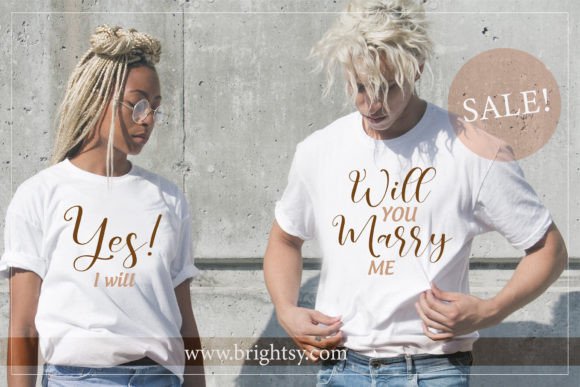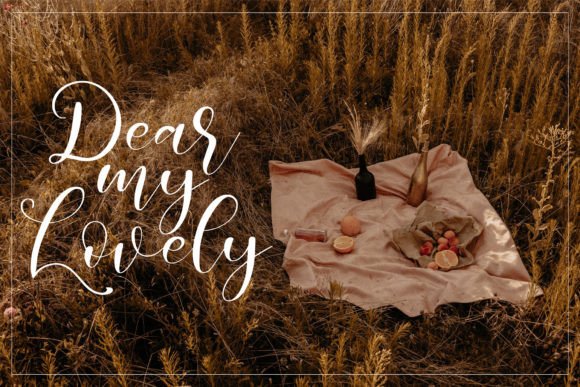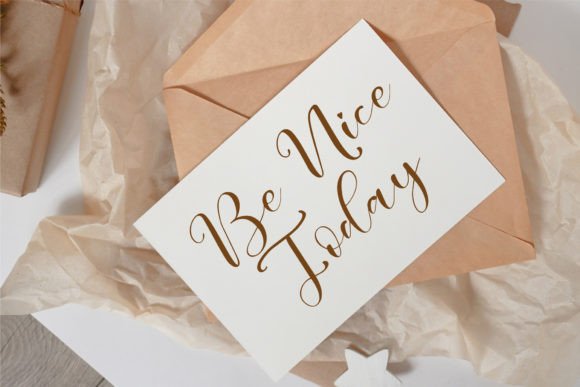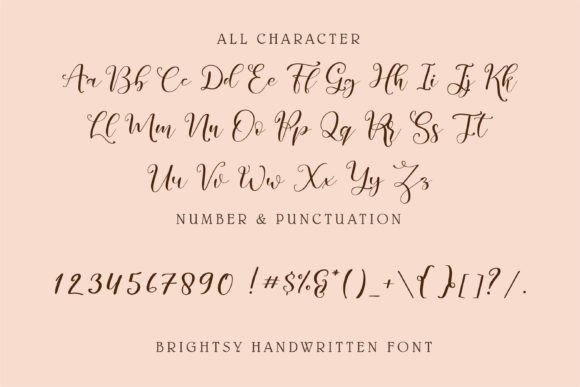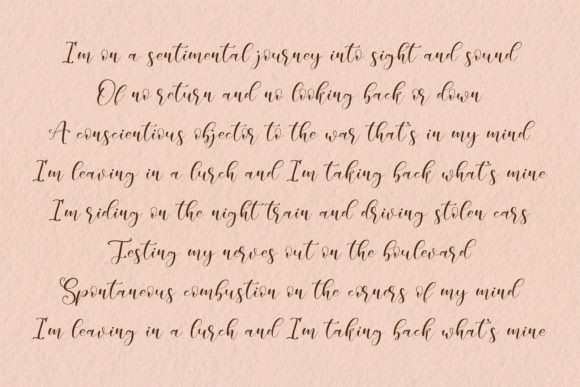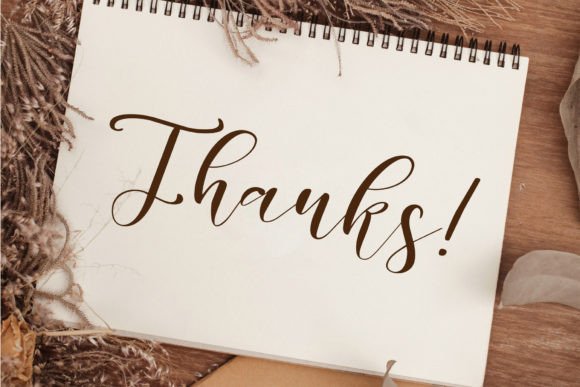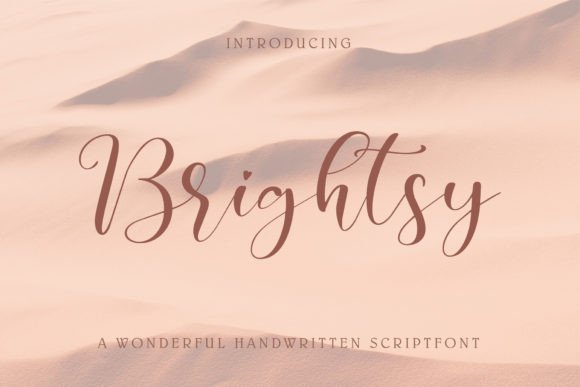
Introducing Brightsy Font: Elevate Your Designs with Elegance
In the world of design, typography plays a crucial role in conveying the tone and aesthetic of a project. For those seeking a font that exudes elegance and sophistication, Brightsy Font is an excellent choice. This beautiful, handwritten font is perfect for designers and crafters looking to add a touch of chic to their work.
What is Brightsy Font?
Brightsy Font is a stunning, handwritten typeface that boasts a unique blend of classic charm and modern flair. Its elegant strokes and lovely flow make it an ideal choice for a wide range of design projects. Whether you’re working on a logo, branding materials, wedding invitations, or social media graphics, Brightsy Font is sure to impress.
Key Features of Brightsy Font
• Elegant and Lovely: Brightsy Font features beautiful, flowing strokes that give it a sophisticated and refined look.
• Handwritten: The font’s handwritten nature adds a personal touch to any design, making it perfect for projects that require a human feel.
• Versatile: Brightsy Font can be used for a variety of design projects, including logos, branding, wedding invitations, business cards, greeting cards, signboards, posters, magazines, social media, planner prints, crafting, and websites.
• Easy to Read: Despite its elegant nature, Brightsy Font is easy to read, making it suitable for both digital and print applications.
Uses of Brightsy Font
Brightsy Font’s versatility makes it an excellent choice for numerous design projects. Here are some of the ways you can use this beautiful font:
• Logos and Branding: Create a lasting impression with a logo that exudes elegance and sophistication. Brightsy Font is perfect for branding materials, including business cards, letterheads, and packaging.
• Wedding Invitations: Add a touch of romance and whimsy to your wedding invitations with Brightsy Font. Its elegant strokes and lovely flow make it perfect for wedding stationery.
• Social Media Graphics: Elevate your social media presence with Brightsy Font. Use it to create stunning graphics, quotes, and promotional materials that grab attention.
• Crafting and DIY Projects: Brightsy Font is a great choice for crafters and DIY enthusiasts. Use it to add a personal touch to your projects, such as planner prints, journaling, and card making.
• Websites: Brightsy Font can be used on websites to add a touch of elegance and sophistication. Use it for headings, titles, and other design elements to create a cohesive look.
Why Choose Brightsy Font?
With so many fonts available, why choose Brightsy Font? Here are a few reasons why designers and crafters love this beautiful typeface:
• Unique and Distinctive: Brightsy Font stands out from the crowd with its unique and distinctive style.
• Elegant and Sophisticated: The font’s elegant strokes and lovely flow make it perfect for projects that require a touch of sophistication.
• High-Quality: The font is designed to high-quality standards, ensuring that it looks great in any design project.
Brightsy Font is a beautiful, elegant, and versatile typeface that’s perfect for designers and crafters looking to add a touch of sophistication to their work. With its unique and distinctive style, easy-to-read nature, and high-quality design, Brightsy Font is an excellent choice for a wide range of design projects. Whether you’re working on a logo, branding materials, wedding invitations, or social media graphics, Brightsy Font is sure to impress.